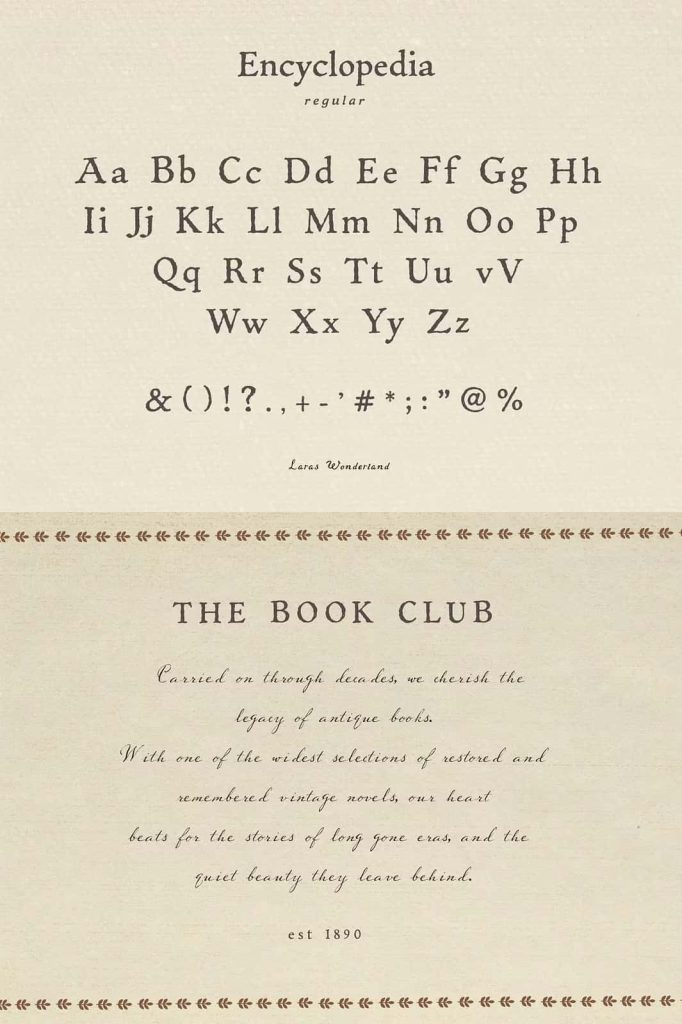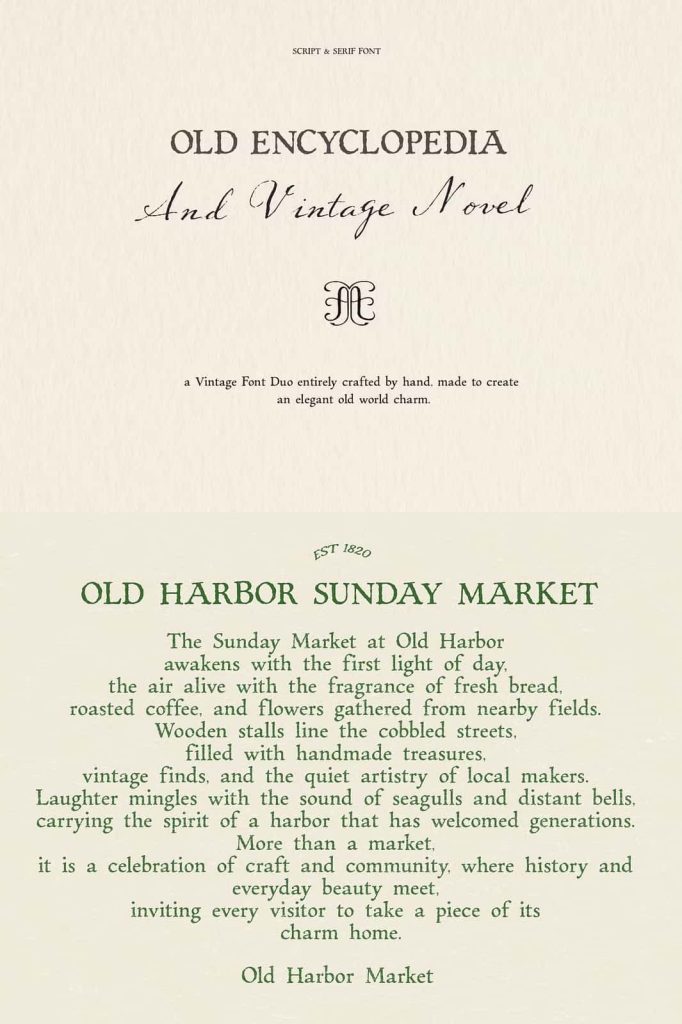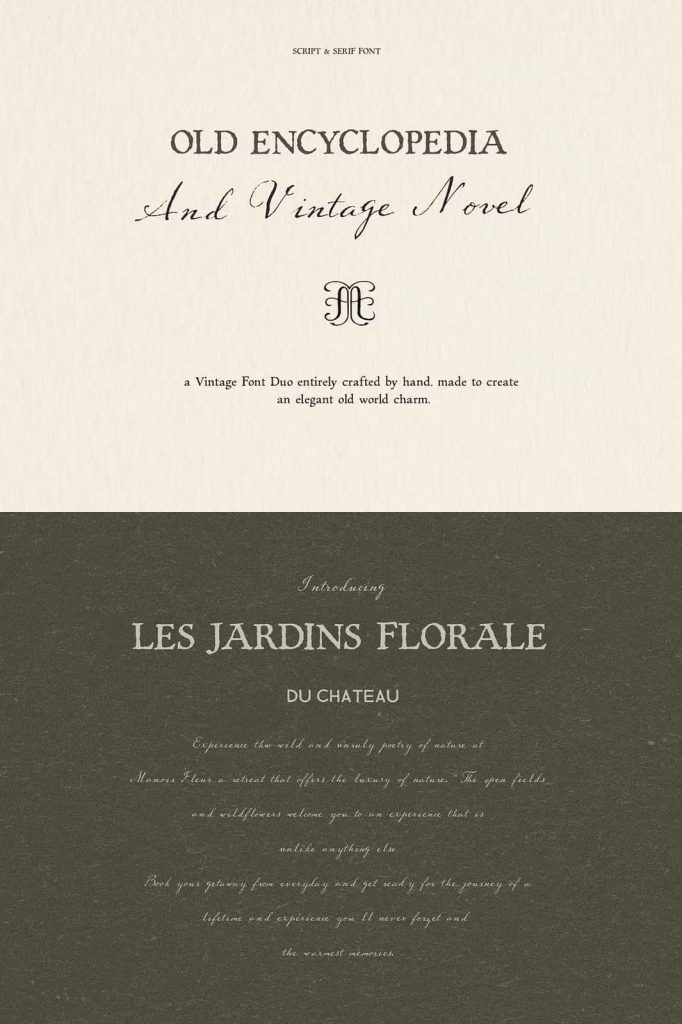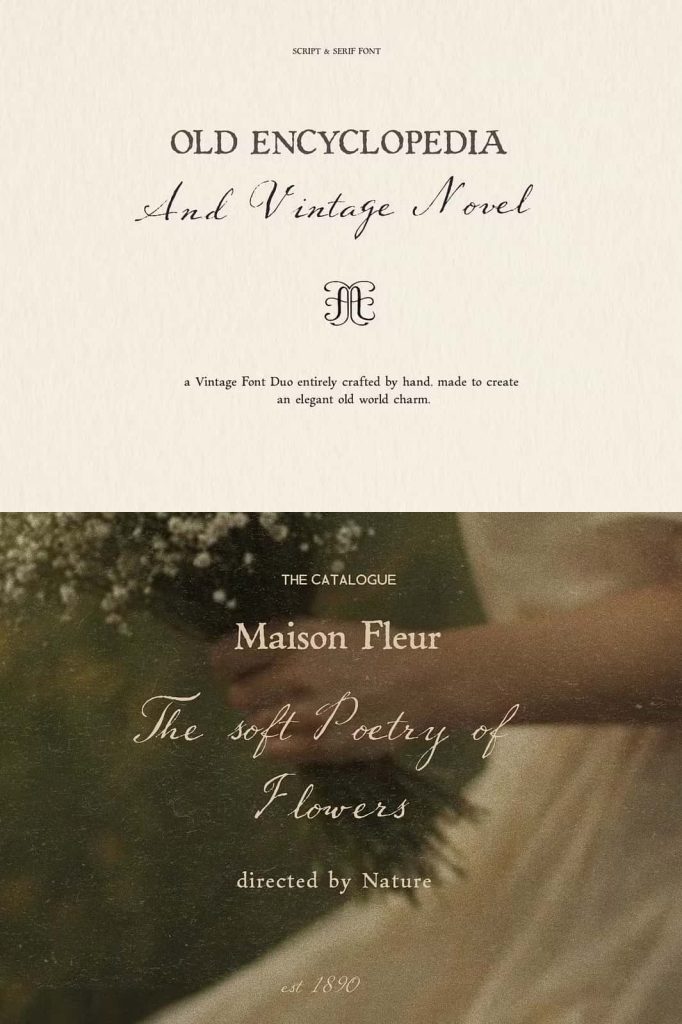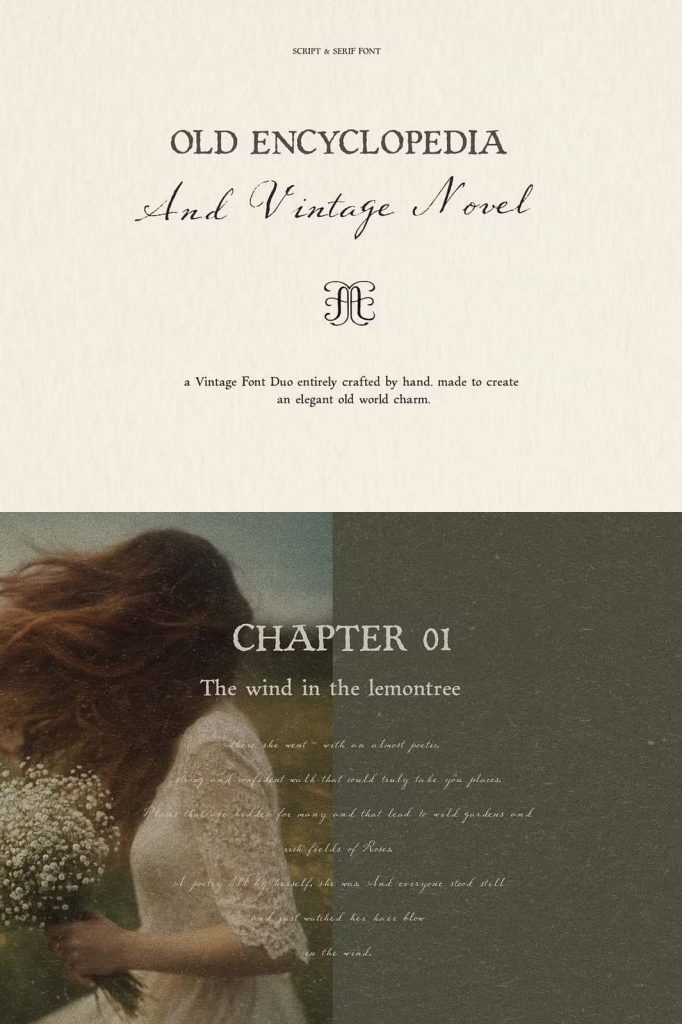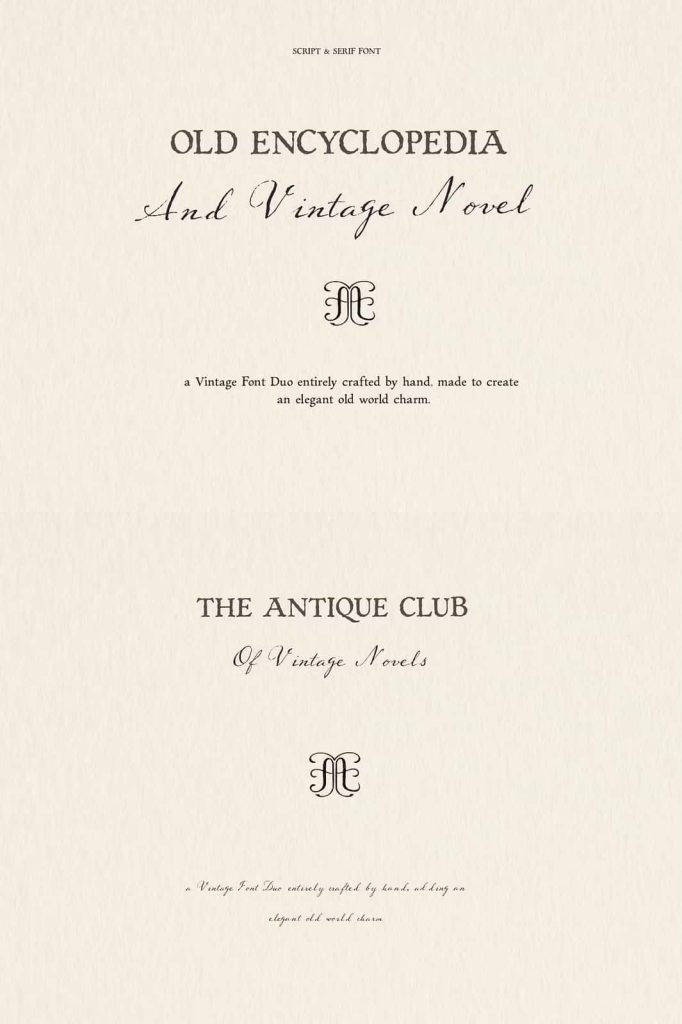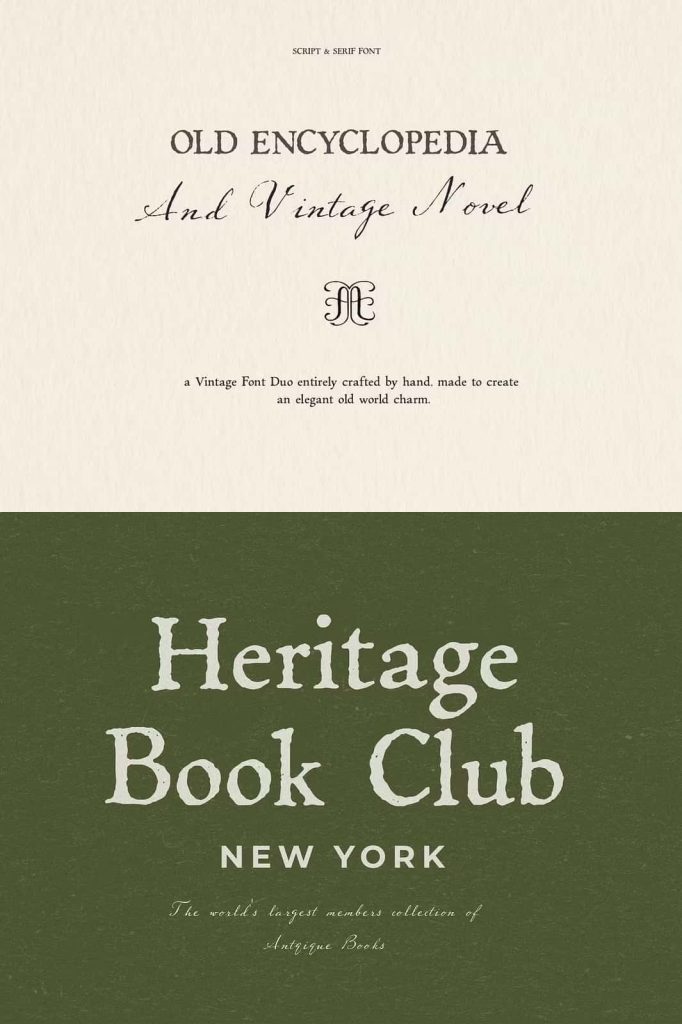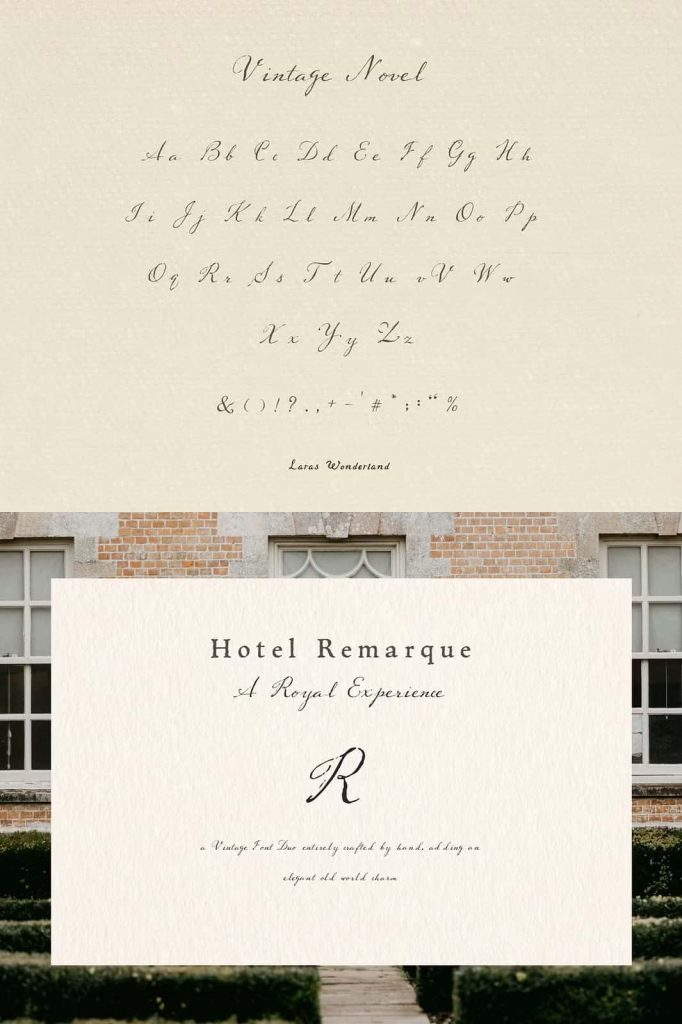
Vintage Novel Font Duo
Vintage Novel Font Duo is a beautifully handcrafted typography collection that captures the romance, elegance, and authenticity of classic literature. Inspired by antique manuscripts, historic libraries, aged book pages, and timeless storytelling traditions, this font duo combines two complementary typefaces that work together to create rich and expressive visual compositions. Designed for creatives who appreciate heritage-inspired design, Vintage Novel Font Duo brings a poetic atmosphere and old-world charm to every project.
The collection features Vintage Novel, an elegant handwritten script font with an antique personality, paired with Encyclopedia, a vintage typewriter-style serif font that evokes the look of historical documents and classic publishing. Together, these typefaces provide the perfect balance between expressive handwriting and structured typography, making them ideal for branding, editorial layouts, book-related projects, packaging, invitations, and artistic design work.
Whether you are creating a literary-inspired brand identity, designing elegant product packaging, producing editorial content, or crafting meaningful visual storytelling, Vintage Novel Font Duo offers the authenticity and sophistication needed to make a lasting impression.
Vintage Novel: A Handwritten Script Filled with Poetry and Character
Vintage Novel is the heart of this font duo. Its handcrafted script style reflects the beauty of handwritten letters, personal journals, and antique correspondence. Every curve and stroke has been carefully designed to create a natural flow that feels expressive, elegant, and deeply personal.
The font captures the emotional quality often found in handwritten manuscripts, giving every word a sense of storytelling and artistic depth. Its antique-inspired appearance makes it perfect for projects that require warmth, authenticity, and a touch of nostalgia.
Designers can use Vintage Novel to create elegant logos, product labels, book titles, inspirational quotes, and branding materials that feel refined while maintaining a handcrafted charm. The font’s poetic character transforms ordinary text into meaningful visual communication.
Encyclopedia: A Vintage Typewriter-Style Serif Font
Complementing the script font is Encyclopedia, a carefully crafted serif typeface inspired by classic typewriters, historical publications, and archival documents. Its vintage structure brings a sense of credibility, sophistication, and literary heritage to any design.
The typewriter-inspired details evoke memories of traditional publishing and handwritten manuscripts transferred into print. This distinctive style makes Encyclopedia particularly effective for editorial layouts, book covers, vintage branding, posters, and historical-themed projects.
Its strong readability and balanced proportions ensure that it performs beautifully in both display settings and supporting text. Whether used for headlines or body copy, Encyclopedia maintains a professional appearance while preserving its nostalgic character.
A Timeless Combination of Handwritten and Printed Typography
One of the greatest strengths of Vintage Novel Font Duo is the natural harmony between its two typefaces. Vintage Novel introduces elegance, emotion, and artistic expression, while Encyclopedia provides structure, readability, and historical depth.
Together, they create a complete typography system that allows designers to establish clear visual hierarchy while maintaining a cohesive aesthetic. The contrast between the flowing script and the vintage serif generates visual interest without disrupting the overall balance of the design.
This thoughtful pairing makes the font duo highly versatile and suitable for projects that require both personality and professionalism.
Ideal Uses for Vintage Novel Font Duo
- Book covers and publishing projects
- Vintage and heritage-inspired branding
- Editorial layouts and magazine design
- Luxury product packaging and labels
- Wedding invitations and event stationery
- Historical and literary-themed posters
- Creative logo design and visual identities
- Greeting cards and handwritten quote artwork
- Museum, library, and cultural institution branding
- Social media content and storytelling campaigns
Perfect for Literary and Editorial Design
Typography plays a crucial role in shaping the atmosphere of editorial projects. Vintage Novel Font Duo excels in this environment by creating a visual language that feels sophisticated, literary, and timeless. The script font brings emotional depth to titles and feature elements, while the serif font provides clarity and structure throughout the layout.
This combination makes the duo ideal for book covers, magazines, journals, newsletters, and publishing projects that seek to capture the spirit of traditional literature and classic storytelling.
Designers can use the fonts to create immersive reading experiences that evoke the elegance of historical publications while maintaining modern usability.
For designers seeking typography that celebrates craftsmanship, classic literature, and timeless beauty, Vintage Novel Font Duo is an exceptional choice. It transforms text into an engaging visual experience, helping every project tell a story with elegance, character, and lasting impact.